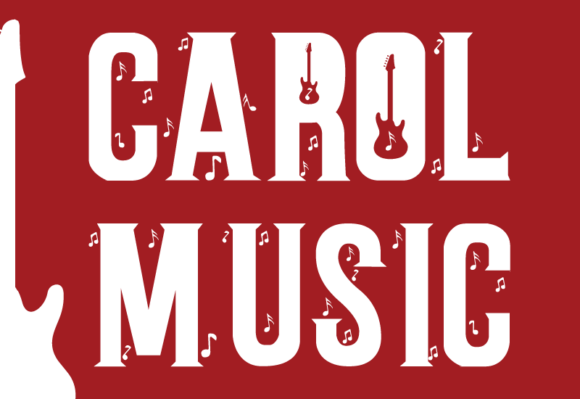
Unveiling Carol Music: A Meticulously Crafted Decorative Font
In the realm of typography, few fonts manage to strike a chord with designers and readers alike. However, Carol Music Font is an exception. This meticulously fashioned decorative font has been crafted with impeccable accuracy, embodying a minimalist grace that is as airy and smooth as a harmonious tune. Carol Music is not just a font; it’s an experience that sets a rhythm to your texts, making it a unique addition to any design project.
Key Features of Carol Music Font
- Minimalist Grace: Carol Music boasts a clean and simple design that ensures readability without compromising on style.
- Precision and Elegance: The font’s design is a delicate balance of precision and elegance, making it perfect for projects that require a touch of sophistication.
- Airy and Smooth: The characters in Carol Music have a fluid, harmonious appearance that mimics the smoothness of a musical tune.
- Versatility: This font can be used across various platforms and design projects, from digital media to print materials.
Applications of Carol Music Font
Carol Music’s unique blend of minimalism and elegance makes it suitable for a wide range of applications. Here are some of the areas where this font truly shines:
- Music and Arts Websites: For websites dedicated to music, arts, and culture, Carol Music offers a thematic elegance that enhances the overall aesthetic.
- Event Invitations: The font’s decorative yet readable nature makes it perfect for event invitations, adding a touch of class and sophistication.
- Branding and Logos: For brands looking to convey a sense of harmony and elegance, Carol Music can be a valuable asset in logo design and brand identity.
- Packaging Design: The font’s versatility extends to packaging design, where it can add a distinctive touch to product packaging.
Tips for Using Carol Music Font Effectively
To make the most of Carol Music, consider the following typography tips:
- Pairing: Pair Carol Music with complementary fonts to create visual interest. Serif fonts can add contrast, while sans-serif fonts can enhance readability.
- Sizing: Use varying font sizes to create a hierarchy of information. Headings can be larger and more decorative, while body text maintains readability.
- Color: Choose colors that resonate with the theme of your project. Monochromatic schemes or soft pastels can enhance the font’s elegance.
- Spacing: Pay attention to line spacing and paragraph spacing to ensure that the text is easy to read and visually appealing.
Finding Inspiration with Carol Music Font
Carol Music’s design is inspired by the harmony and fluidity of music. Here are some ways to draw inspiration for your projects:
- Musical Themes: Consider the mood and atmosphere of different music genres. Classical, jazz, and acoustic music can provide rich inspiration for design projects.
- Nature: The natural world, with its patterns and rhythms, can offer valuable insights into creating harmonious designs.
- Art and Culture: Explore various art forms and cultural expressions that emphasize elegance and precision.
Carol Music Font is more than just a decorative font; it’s a tool for designers to imbue their projects with a sense of harmony and elegance. Its meticulous design, minimalist grace, and precision make it an excellent choice for a wide range of applications. By incorporating Carol Music into your design repertoire, you can create texts that don’t just speak, but sing.